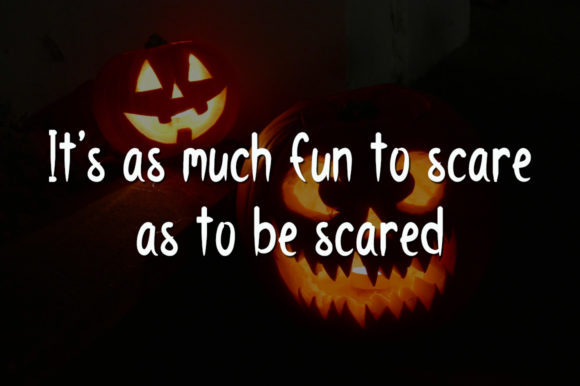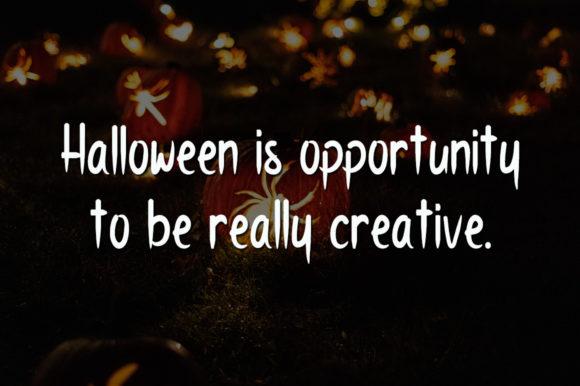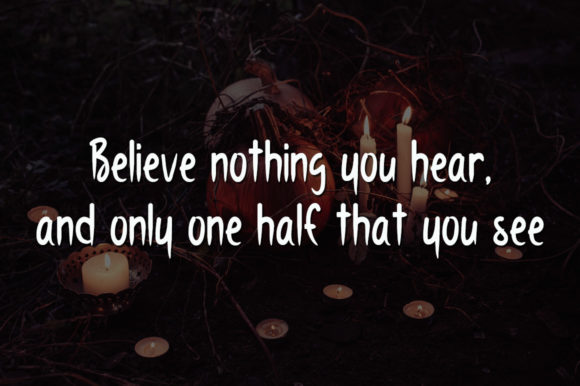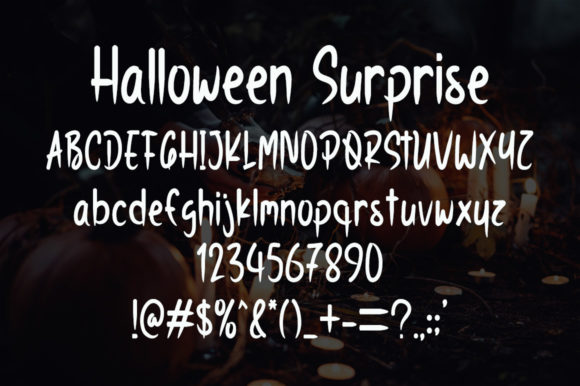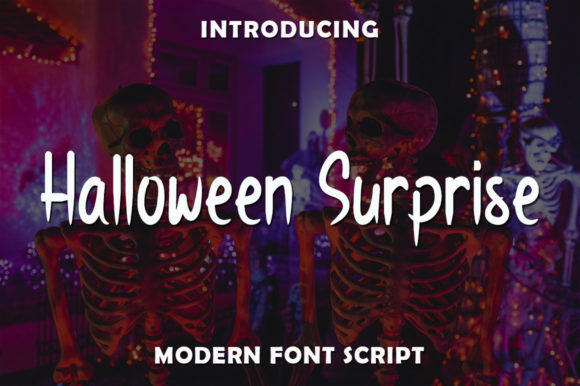
Unleash the Spookiness: Introducing the Halloween Surprise Font
Are you ready to add a dash of spookiness to your October-themed designs? Look no further than the Halloween Surprise Font, a fun and eerie handwritten font that’s perfect for creating eye-catching and engaging content. With its unique and interesting style, this font is sure to cast a spell on your audience and leave them screaming for more!
What Makes Halloween Surprise Font So Special?
The Halloween Surprise Font is a one-of-a-kind, handmade font that’s been carefully crafted to capture the essence of the spookiest time of the year. Its distinctive and quirky style is characterized by irregular lettering, uneven baselines, and a dash of playfulness, making it an ideal choice for designers and crafters looking to add a personal touch to their work.
Whether you’re creating invitations, posters, social media graphics, or any other type of visual content, the Halloween Surprise Font is sure to add a touch of magic and whimsy to your designs. Its versatility and flexibility make it perfect for a wide range of applications, from formal and informal events to commercial and personal projects.
Key Features of Halloween Surprise Font
• Unique and Handwritten Style: The Halloween Surprise Font boasts a distinctive, handmade look that’s sure to set your designs apart from the crowd.
• Spooky and Fun: This font is perfect for October-themed designs, adding a touch of spookiness and playfulness to your work.
• Highly Versatile: Use it for invitations, posters, social media graphics, and any other type of visual content you can think of.
• Easy to Read: Despite its quirky style, the Halloween Surprise Font is highly legible, making it perfect for both short and long texts.
How to Use Halloween Surprise Font in Your Designs
Using the Halloween Surprise Font in your designs is easy and straightforward. Here are a few tips to get you started:
• Pair it with Other Fonts: Combine the Halloween Surprise Font with other fonts to create a unique and eye-catching contrast.
• Experiment with Colors: Try out different colors and textures to add depth and interest to your designs.
• Play with Sizes: Use the Halloween Surprise Font in different sizes to create visual hierarchy and emphasize key elements.
Who Can Benefit from Halloween Surprise Font?
The Halloween Surprise Font is perfect for a wide range of designers and crafters, including:
• Graphic Designers: Add a touch of spookiness to your clients’ October-themed designs and make their brand stand out.
• Event Planners: Create eye-catching invitations and promotional materials for Halloween parties and events.
• Crafters: Use the Halloween Surprise Font to add a personal touch to your handmade cards, gift tags, and other crafts.
• Social Media Enthusiasts: Create engaging and shareable content for your social media channels using the Halloween Surprise Font.
In conclusion, the Halloween Surprise Font is a fun and spooky handwritten font that’s perfect for adding a touch of magic and whimsy to your October-themed designs. With its unique and interesting style, high versatility, and ease of use, this font is sure to become a favorite among designers and crafters. So why wait? Get creative and unleash the spookiness with the Halloween Surprise Font!